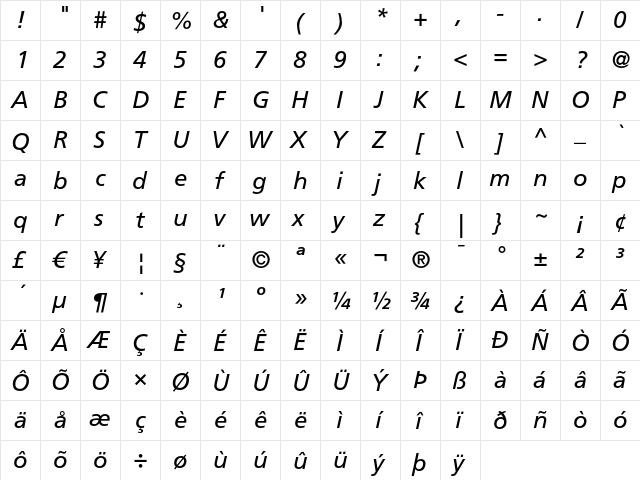
Frutiger LT 56 Italic
Design Context for Frutiger LT Typeface
Frutiger LT is a composed and adaptable typeface that performs quietly and consistently across a wide range of design contexts. Its italic angle brings a sense of urgency and motion to the letterforms. Its slender proportions lend an understated elegance to any composition.
Pro Tip: Try Frutiger LT for annotation and caption copy alongside an upright companion — the contrast in angle creates a dynamic but ordered typographic system.